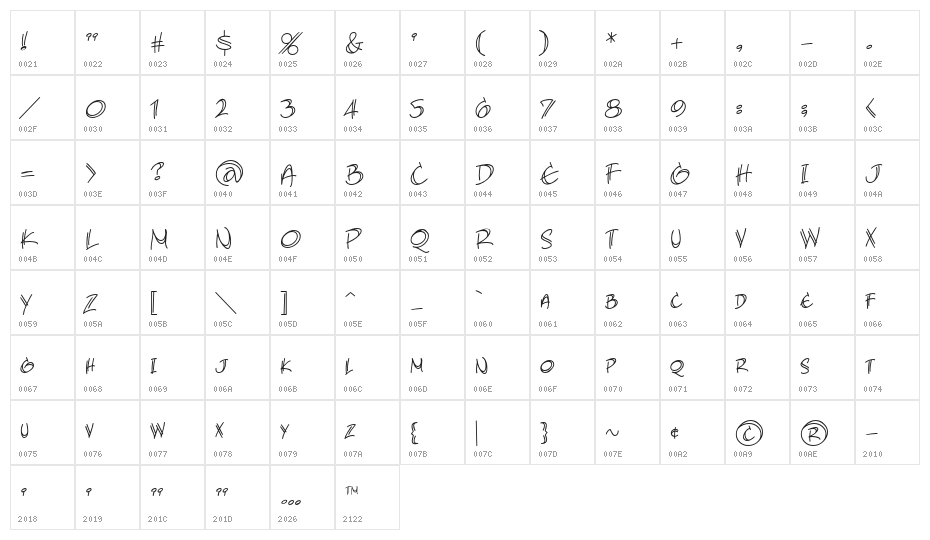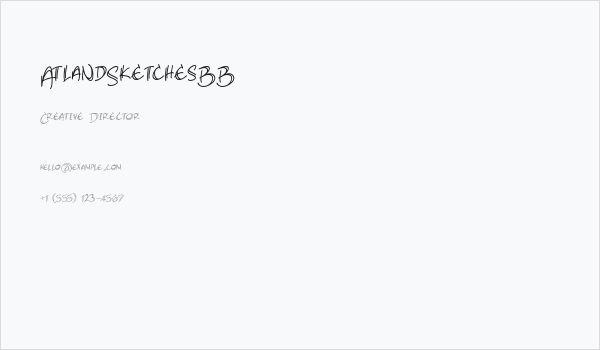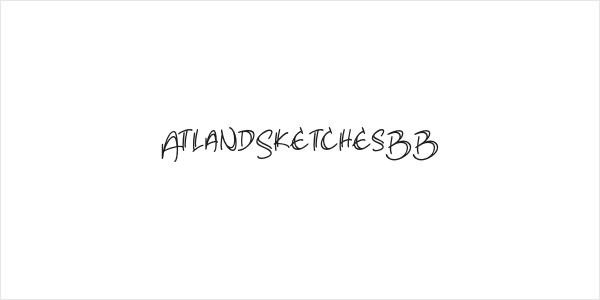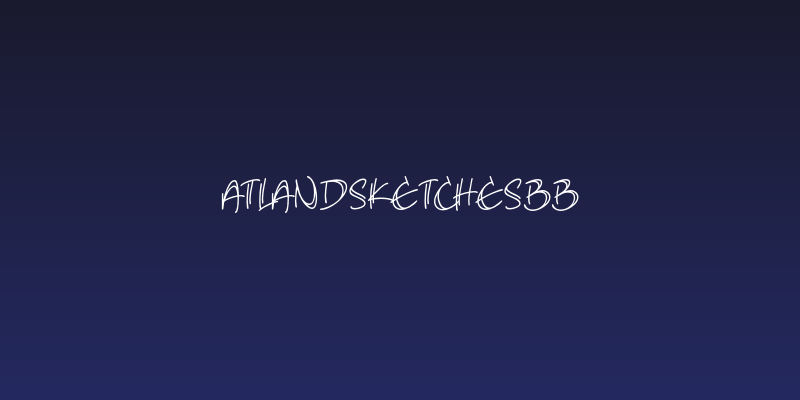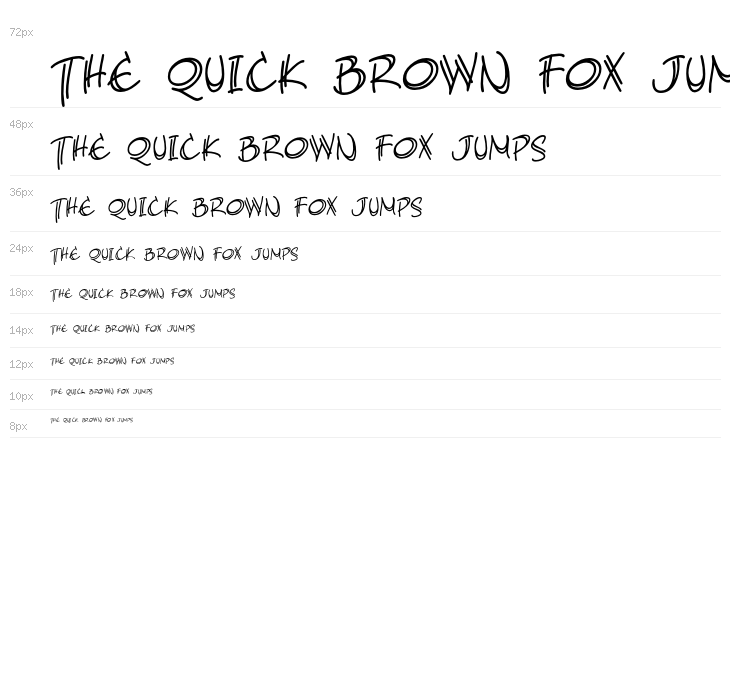
AtlandSketchesBB Font
AtlandSketchesBB Description
This font features a playful, hand-drawn style with a sketch-like appearance. The characters are slightly irregular, giving them a whimsical and artistic feel. The strokes are uneven, with varying thickness, adding to the casual and informal aesthetic. The uppercase and lowercase letters maintain a consistent style, with rounded edges and a slight slant, enhancing the dynamic look. The numerals and special characters follow the same design principles, ensuring a cohesive appearance across all elements.
| Proposed Projects | Ideal for creative projects such as children's books, comic strips, greeting cards, and playful branding materials. |